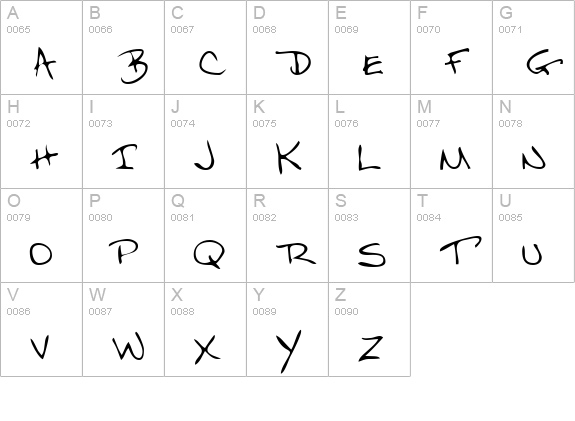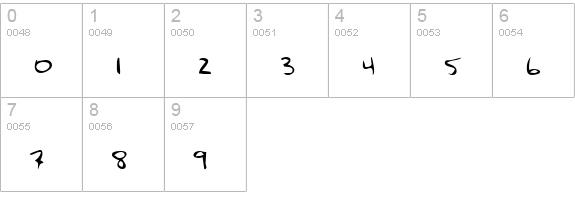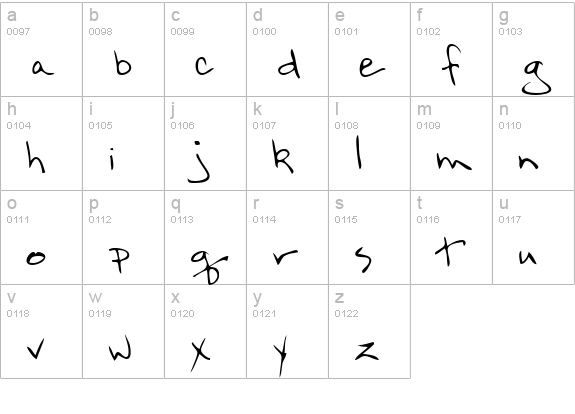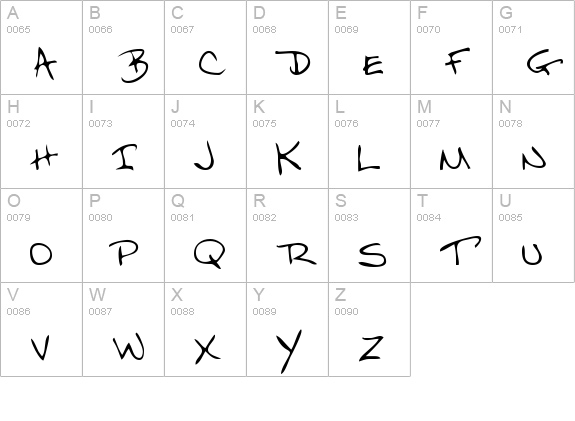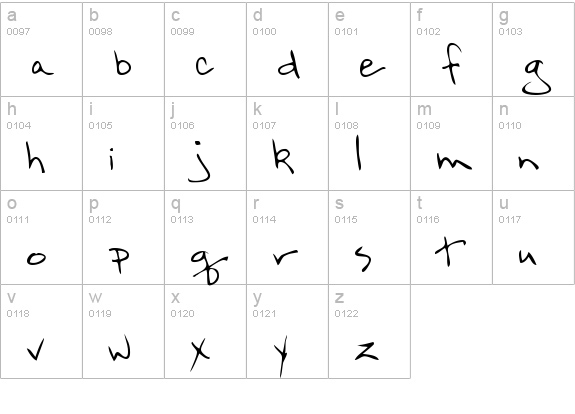
FlintsHand Regular is the standard, neutral variant in the FlintsHand typeface family \xE2\x80\x94 well suited to general body text, paragraphs, and standard typographic work.
FlintsHand Regular font is a delightful and versatile typeface that exudes a sense of warmth and handmade charm. With its unique hand-drawn style and elegant curves, this font is perfect for adding a personal touch to your designs. Whether you're creating invitations, posters, or branding materials, FlintsHand Regular will bring a touch of whimsy and authenticity to your projects. The best part? FlintsHand Regular is available for free download at FontsMarket.com. This means you can easily access this beautiful font and use it in your creative endeavors without any cost. Don't miss out on the opportunity to enhance your designs with the beauty and character of FlintsHand Regular font today!